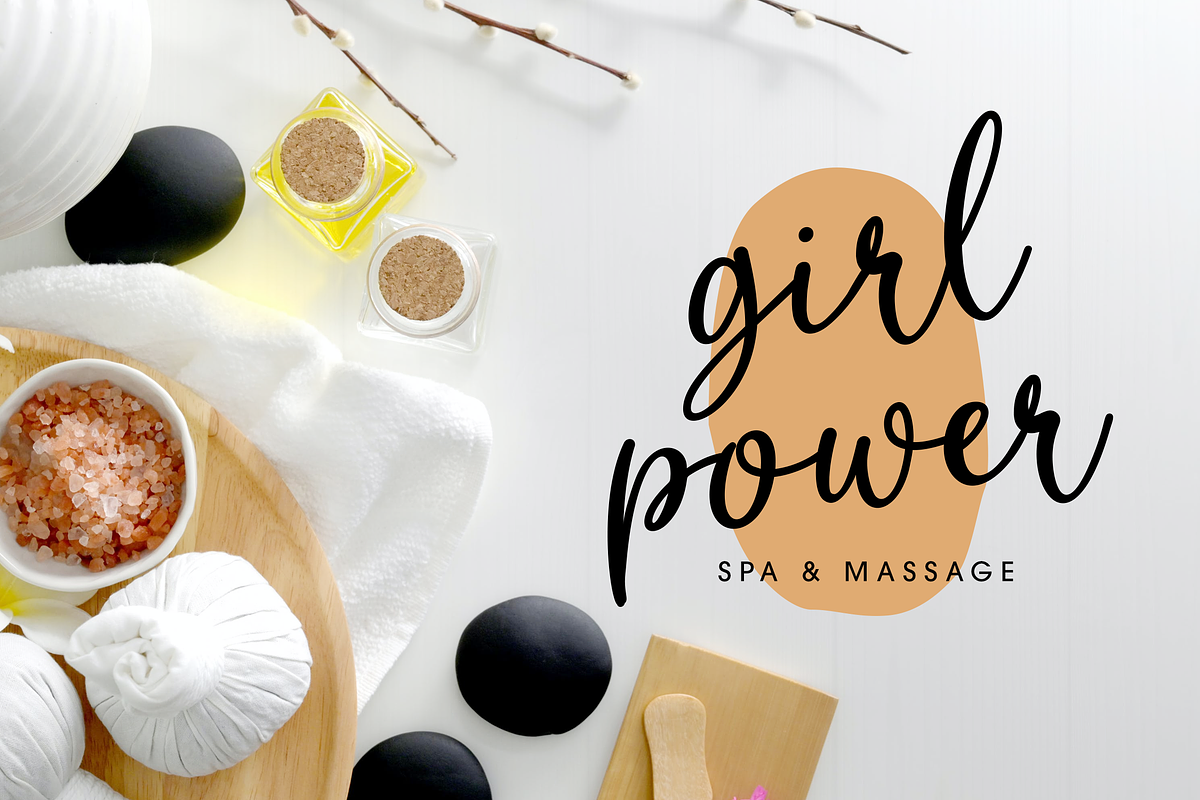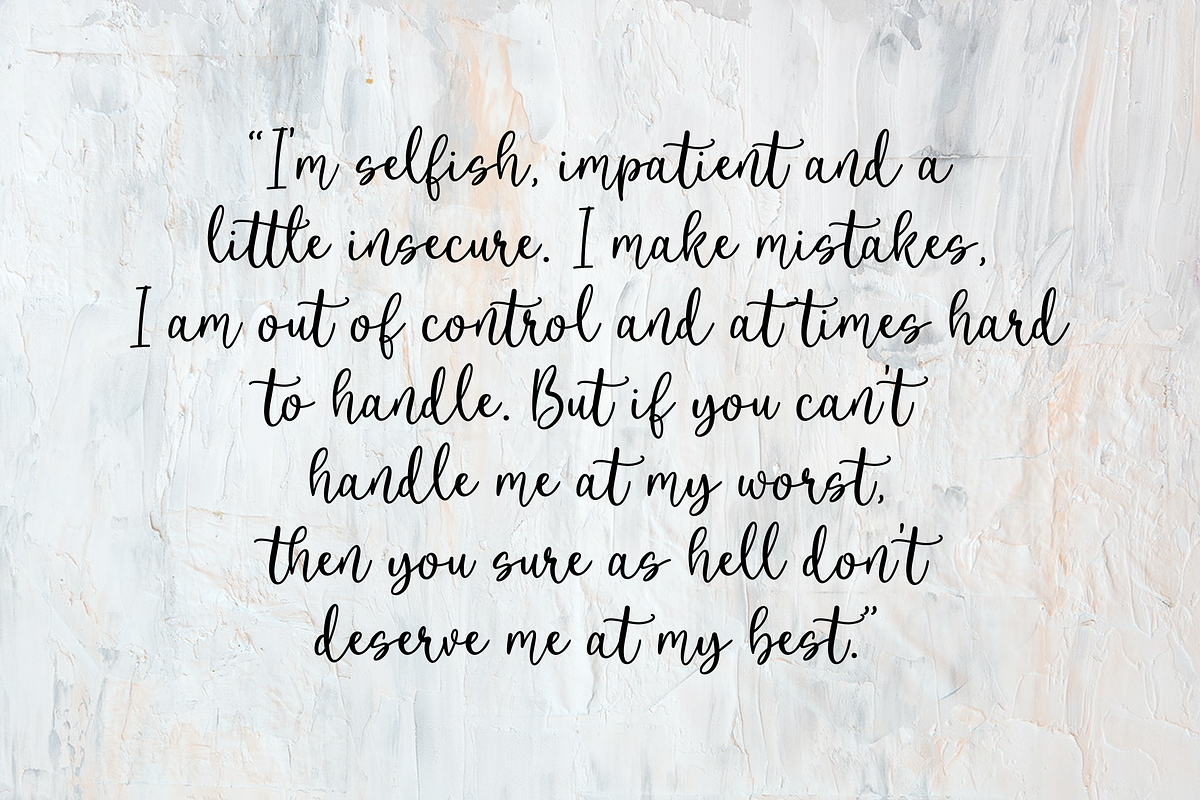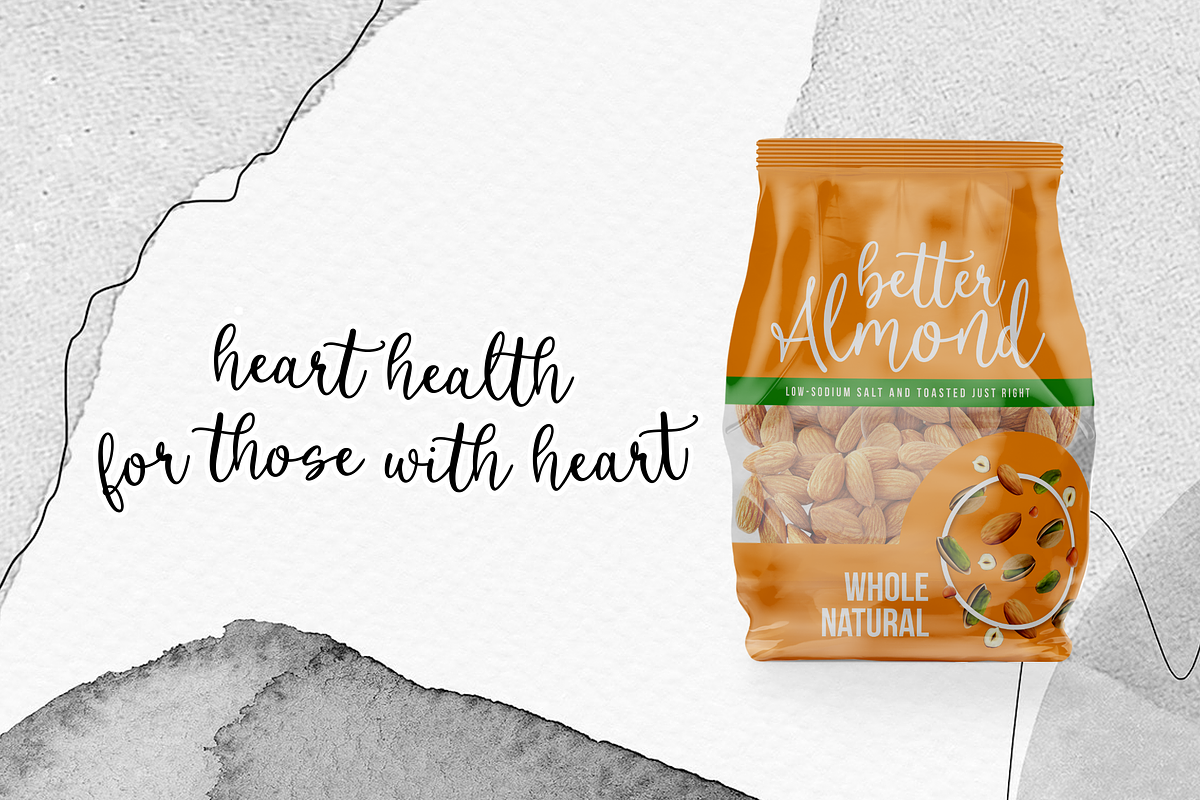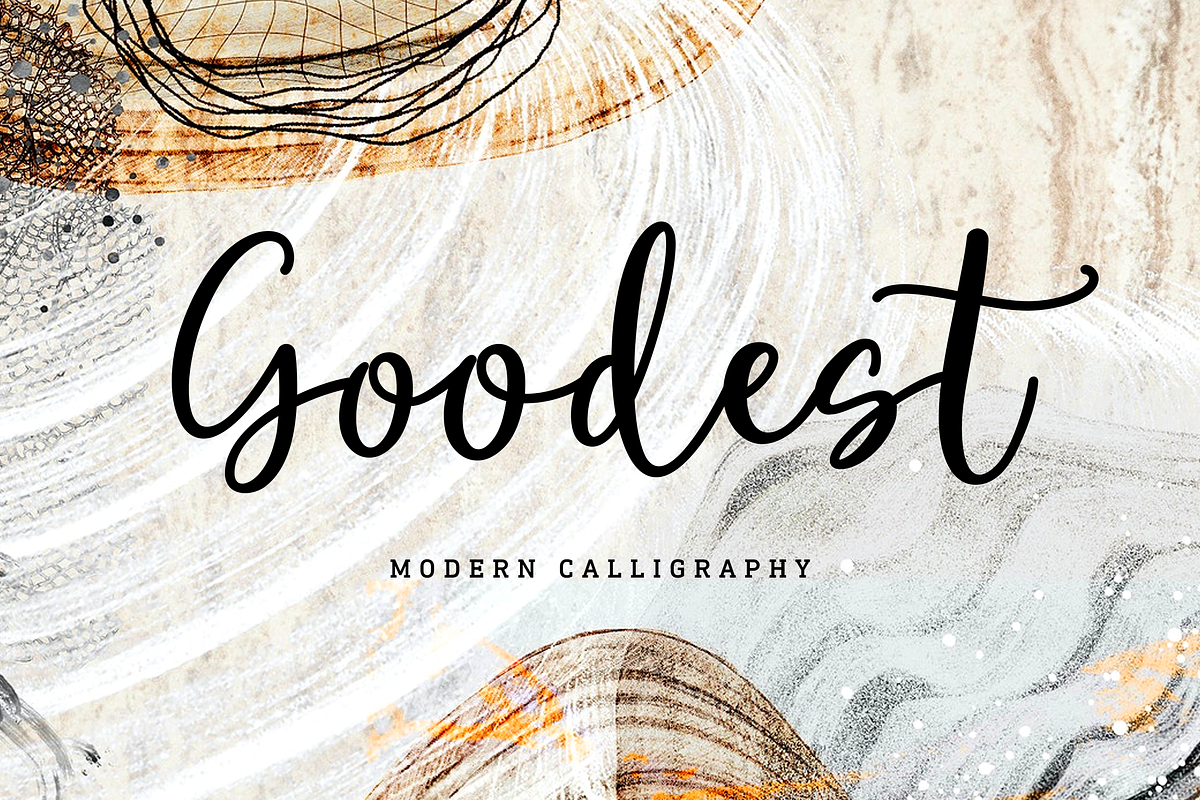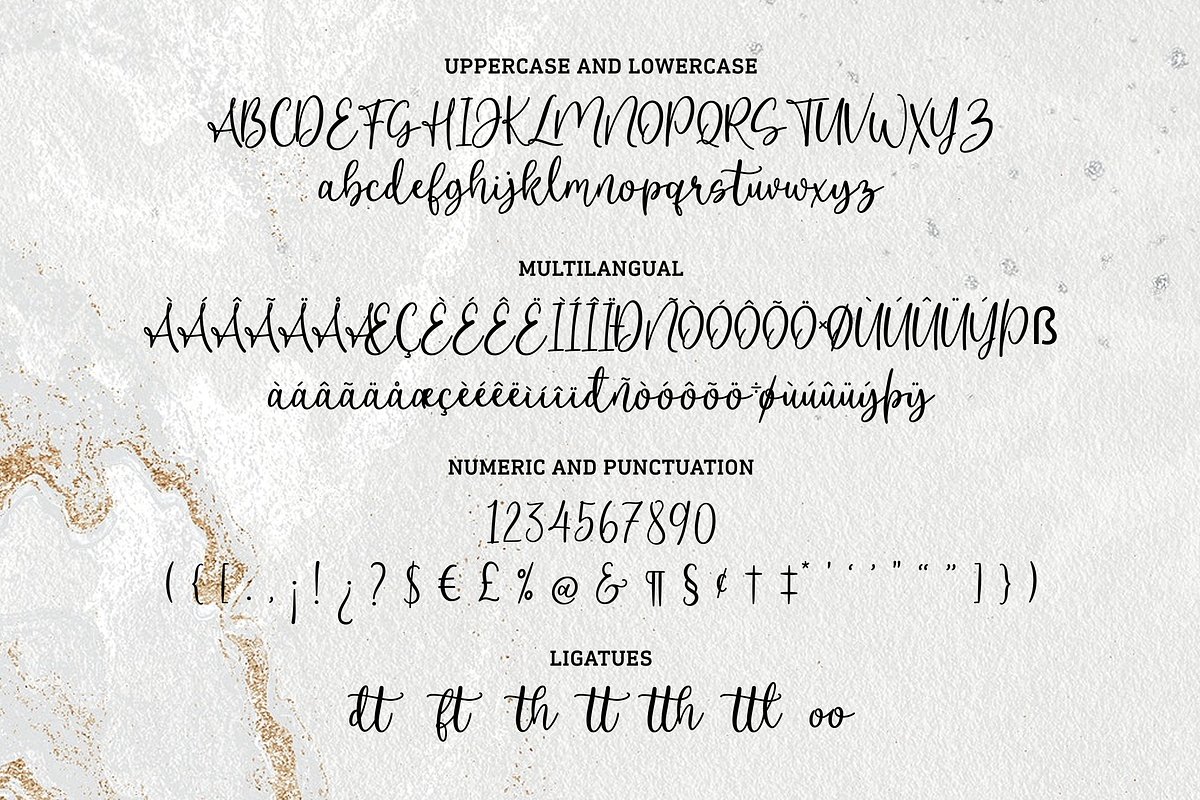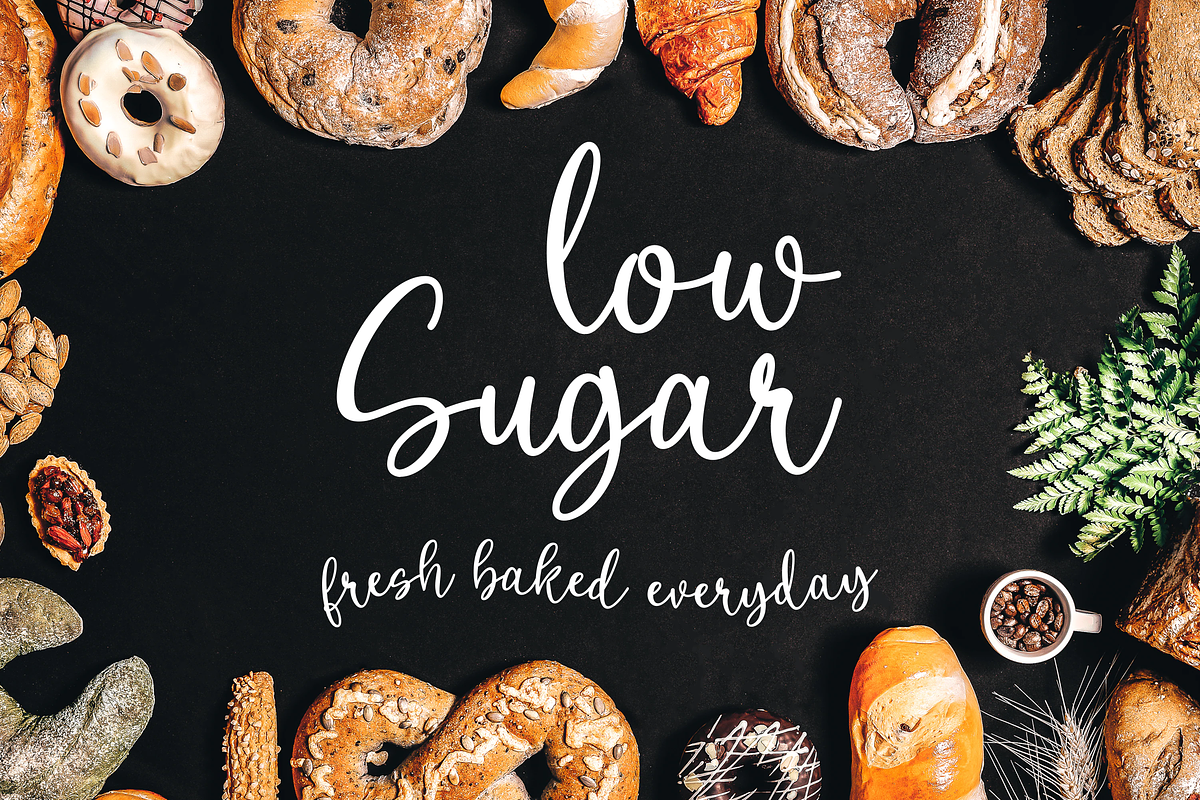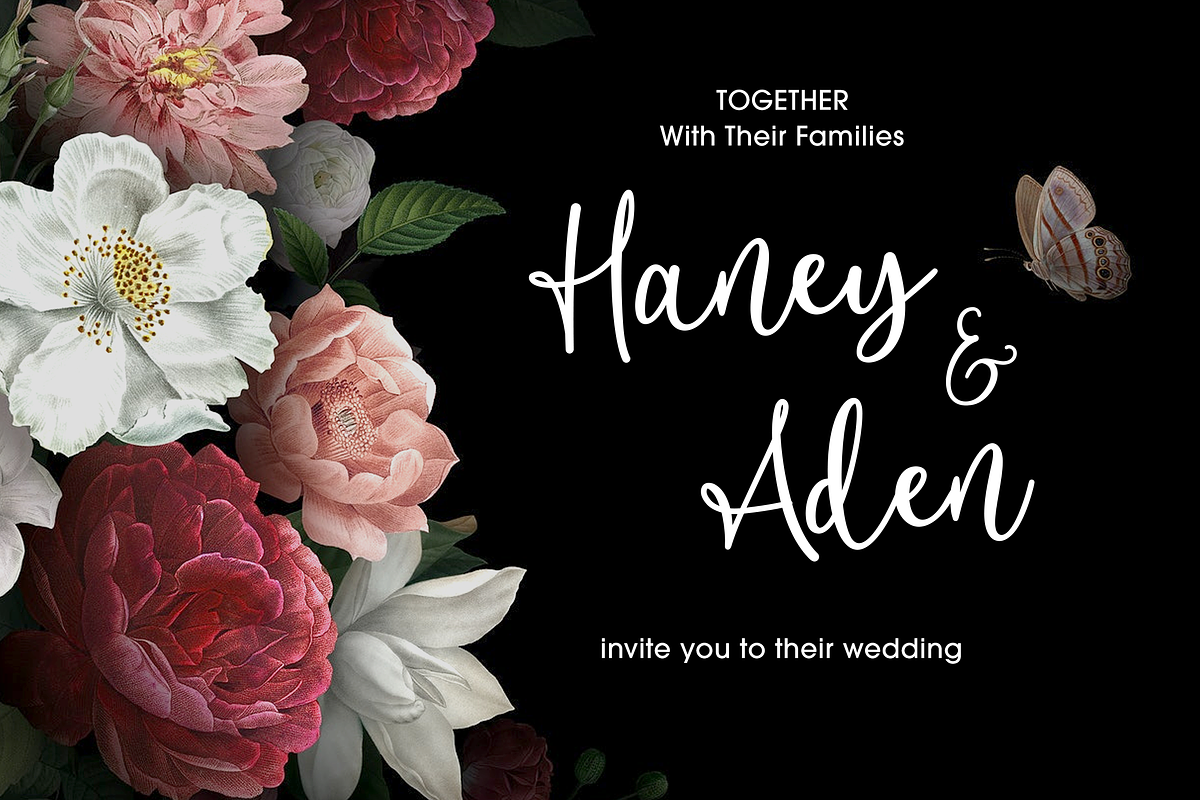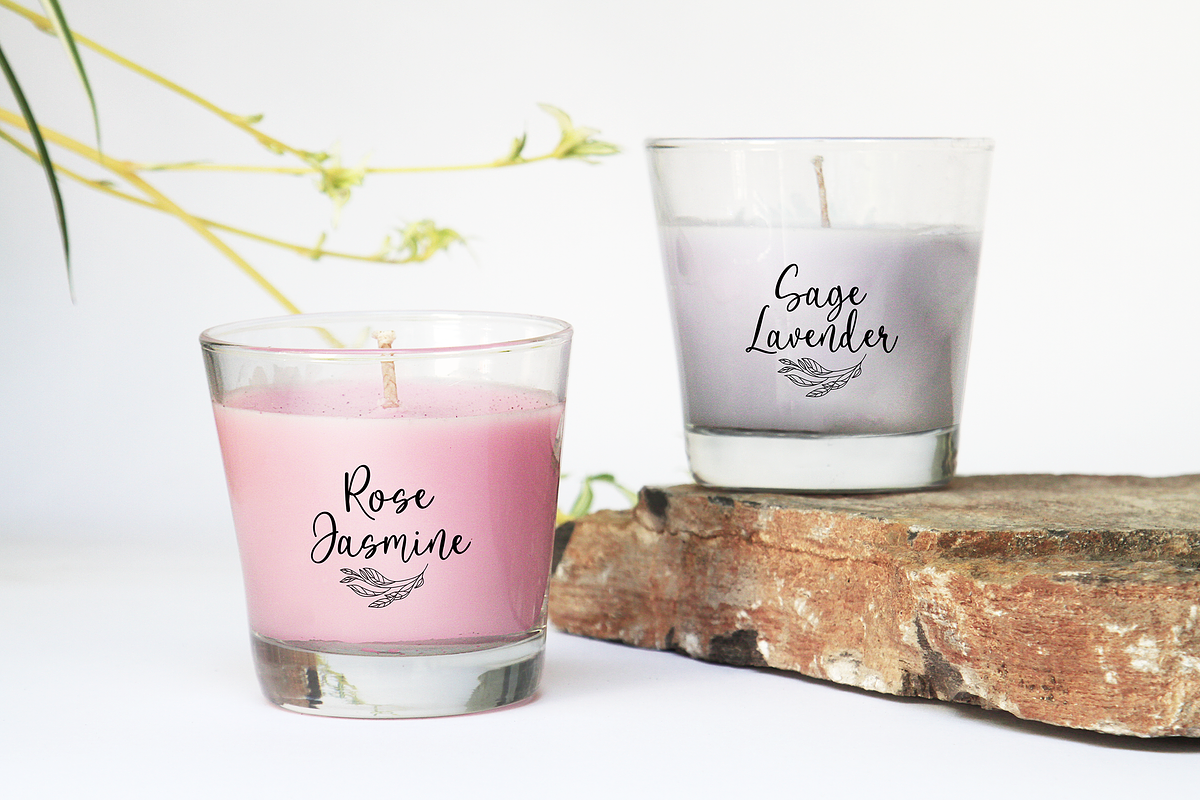
Goodest | Modern Calligraphy
Goodest is a romantic and modern calligraphy font, with a beautiful touch. It’s perfect for your design projects like branding, invitations, logos, quotes, titles and more.